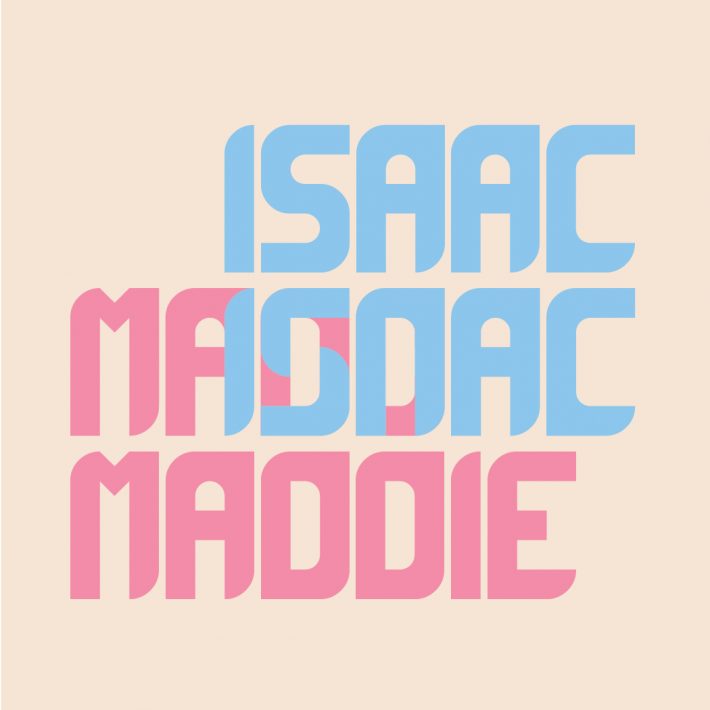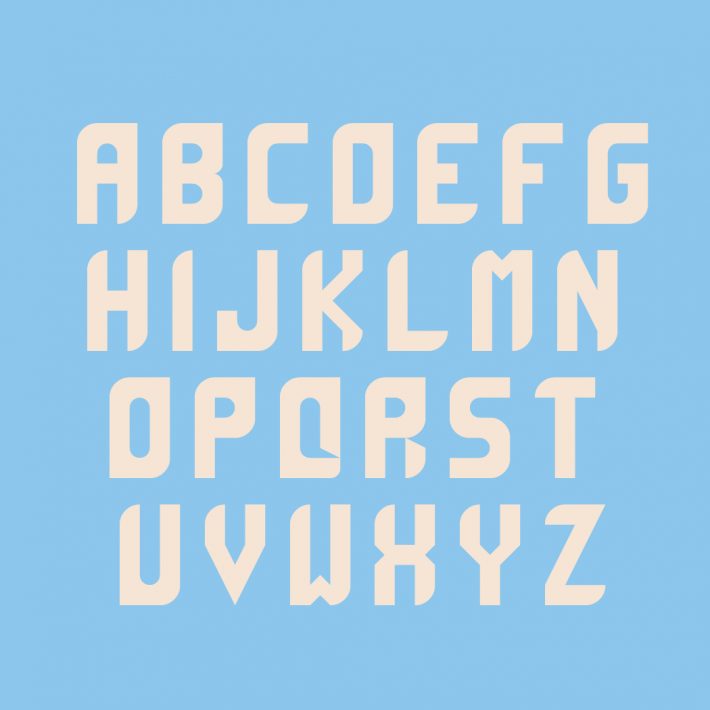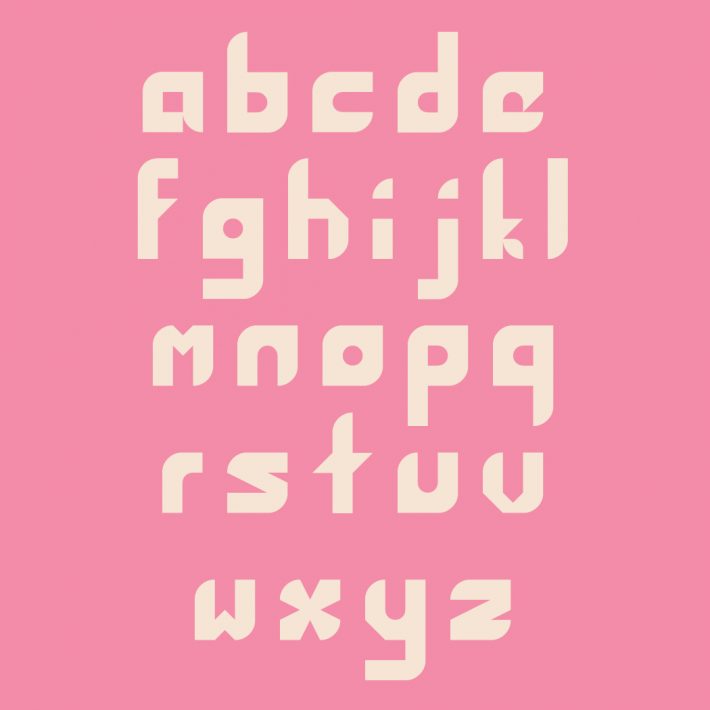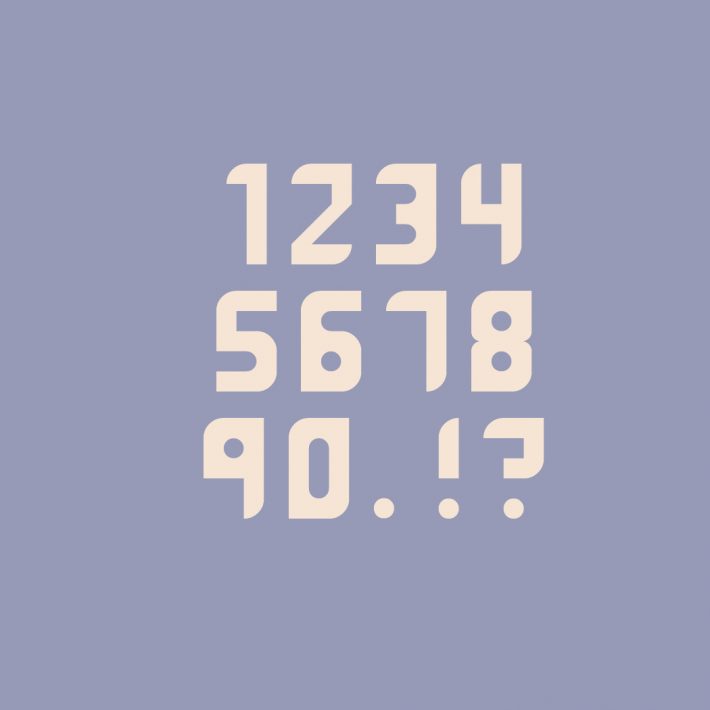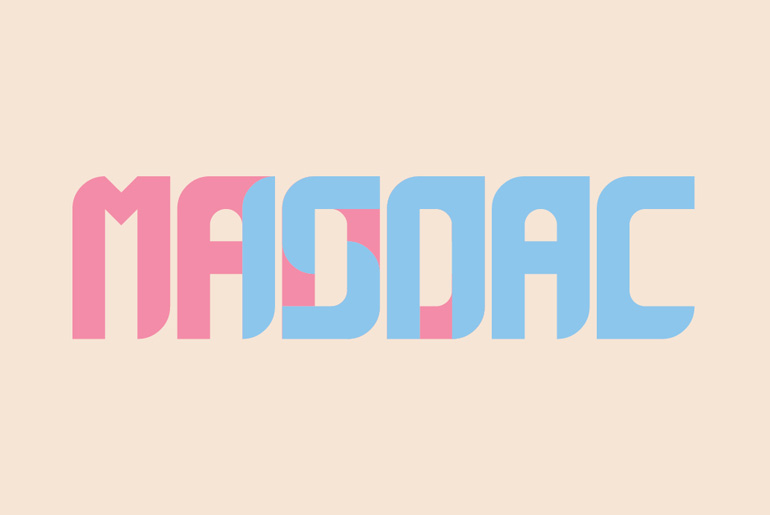
The purpose to make Maddac font was to make a typeface that is enough to read, clean cut and followed the rules determined by Isaac Taracks .
The rules they came up with and worked around where that the top left and bottom right must have curved surface edges as well as the top right and bottom left must have hard border.